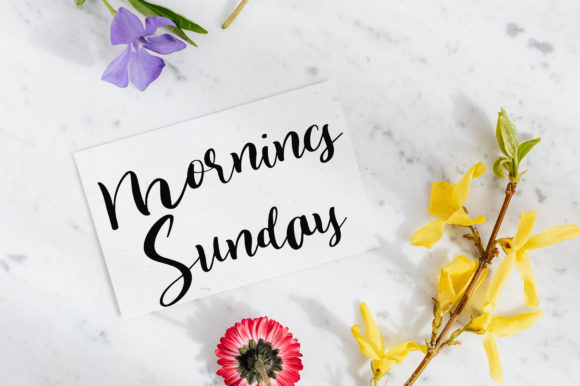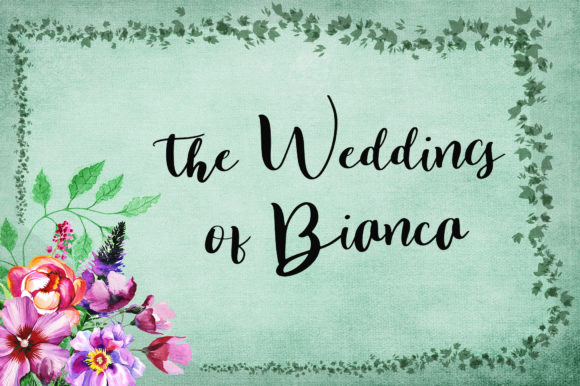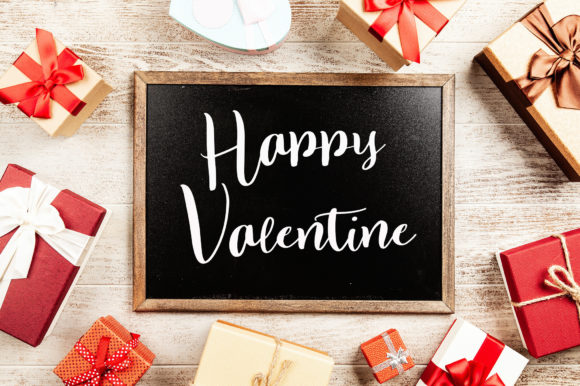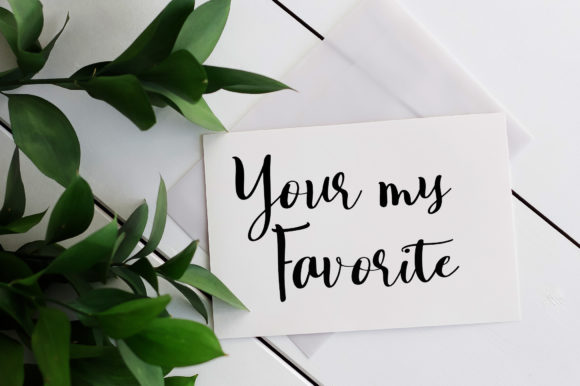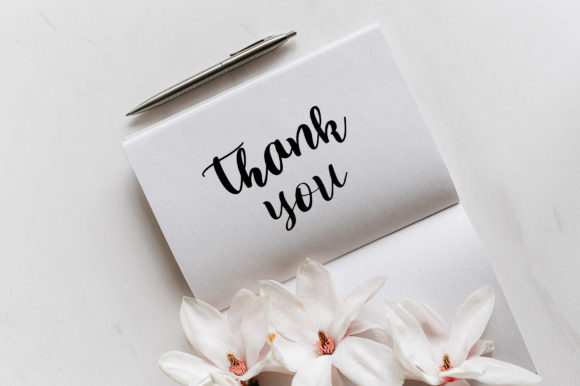
The Elegance of Austine Font: A Designer’s New Best Friend
I’ll never forget the time I was working on a wedding invitation project, and my client asked for a font that was “elegant, yet playful.” I scoured the internet, tried out dozens of fonts, but nothing seemed quite right. That was until I stumbled upon Austine Font. ✨ This stylish and incredibly elegant handwritten font has since become a staple in my design toolkit, and I’m excited to share its beauty with you.
An Honest Review of Austine Font
- ✨ Elegant and sophisticated, perfect for wedding invitations, thank you cards, and quotes
- 💫 Highly versatile, suitable for logos, business cards, and more
- 👍 Beautifully crafted, with a unique and stylish feel
While Austine Font is an amazing addition to any design project, there are a few things to keep in mind: 🤔
- 😐 Some users may find the font a tad too ornate for certain projects
The Story Behind Austine Font
Austine Font was designed with love and care by a talented type designer. The story goes that the designer was inspired by classic calligraphy and wanted to create a font that was both elegant and approachable. 💫 The result is a font that’s perfect for adding a touch of sophistication to any design project.
Q: Is Austine Font suitable for body text?
A: While Austine Font is beautiful, it’s primarily designed for display text (headings, titles, etc.). For body text, you may prefer a clearer, more legible font.